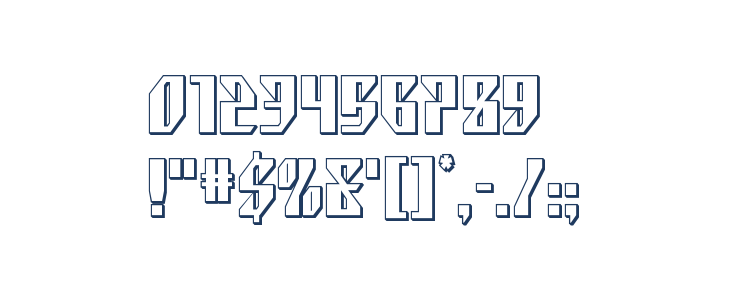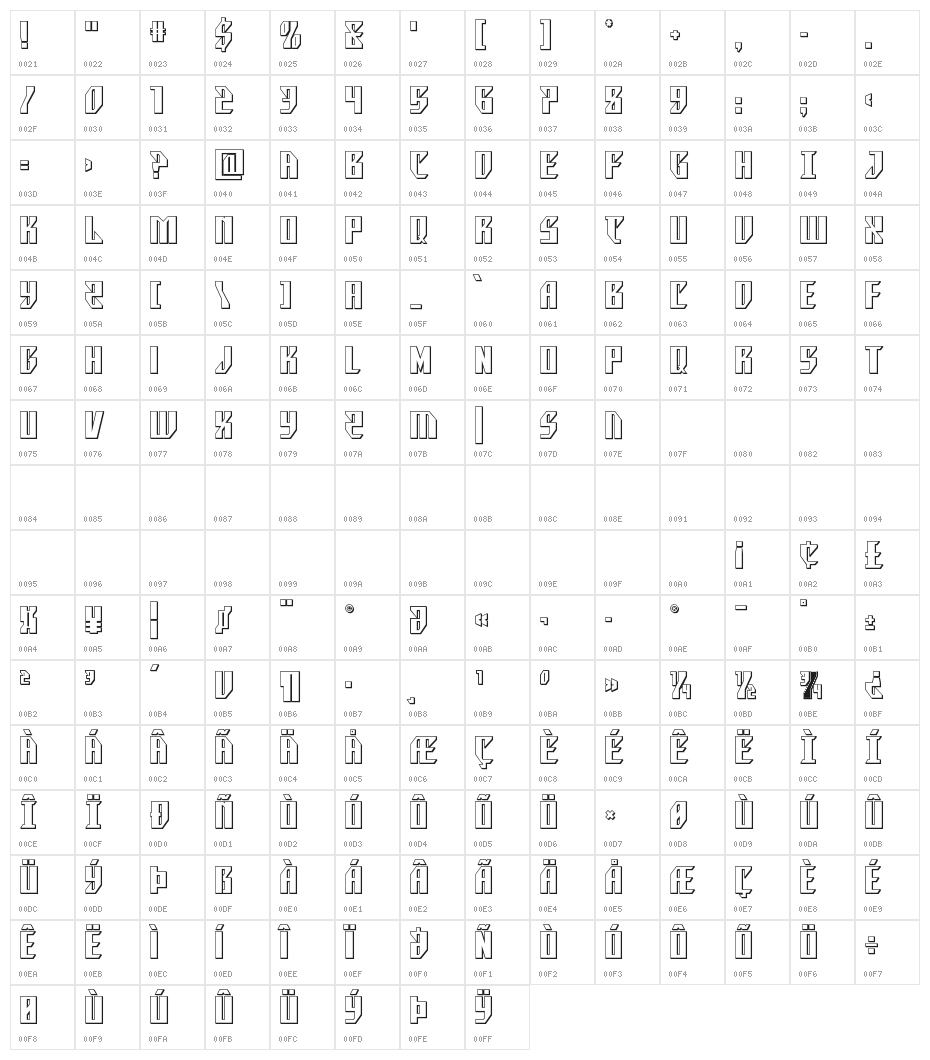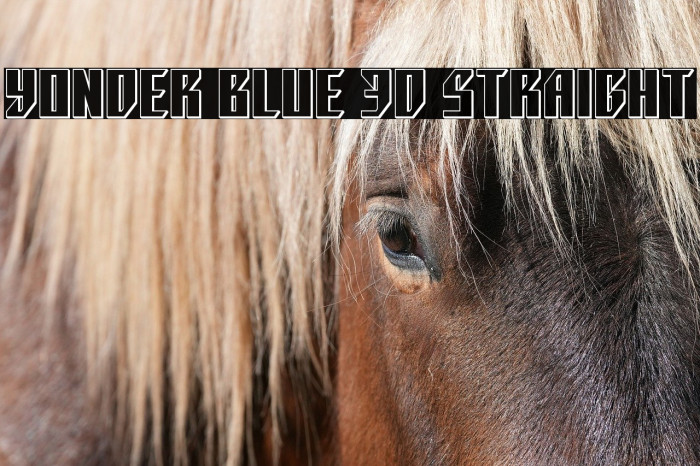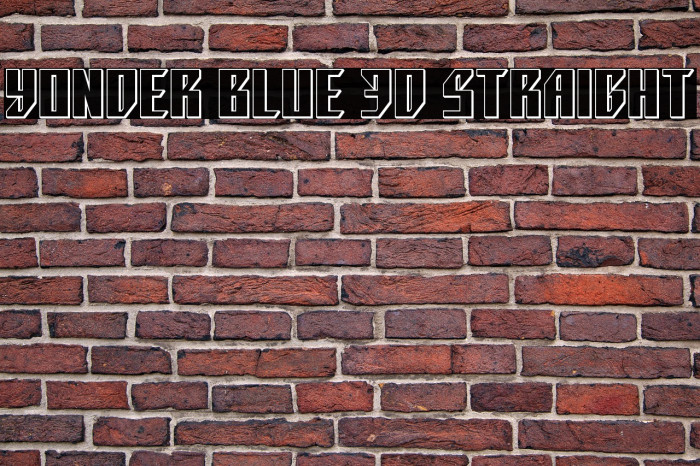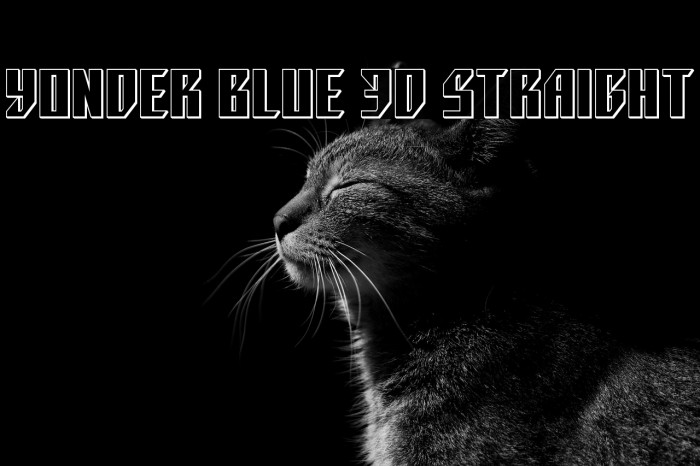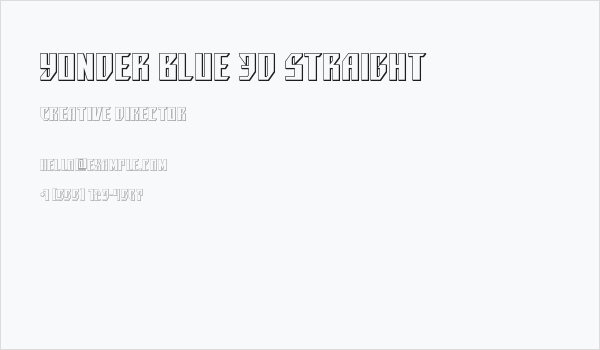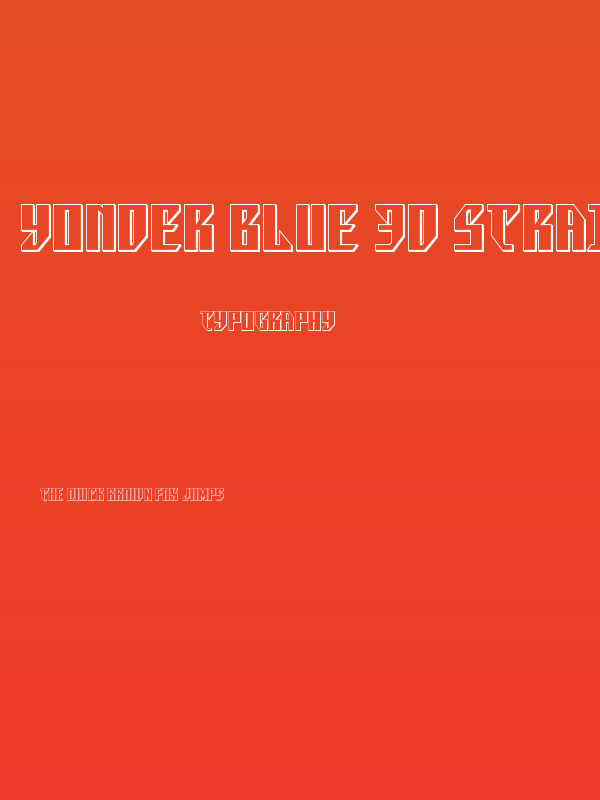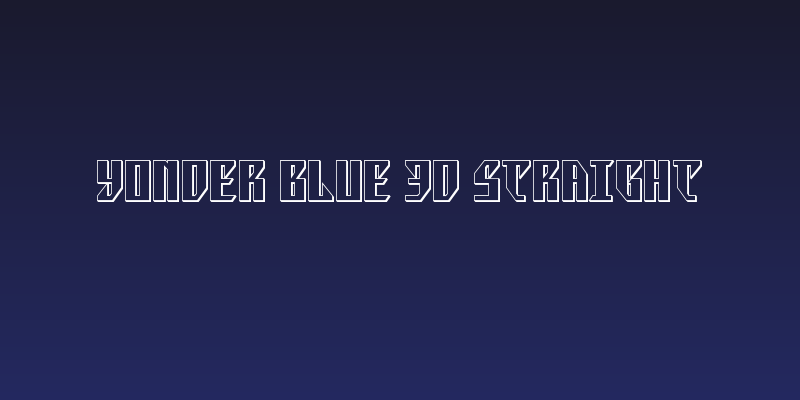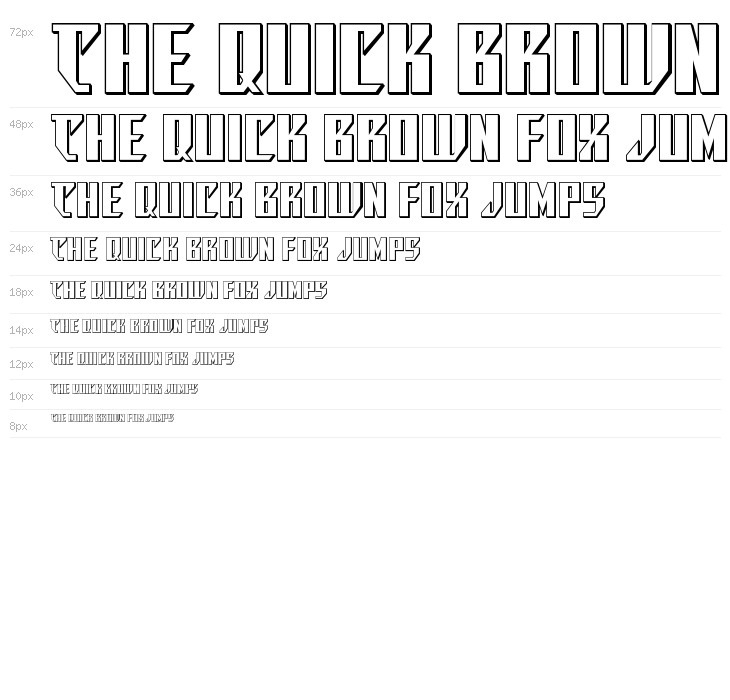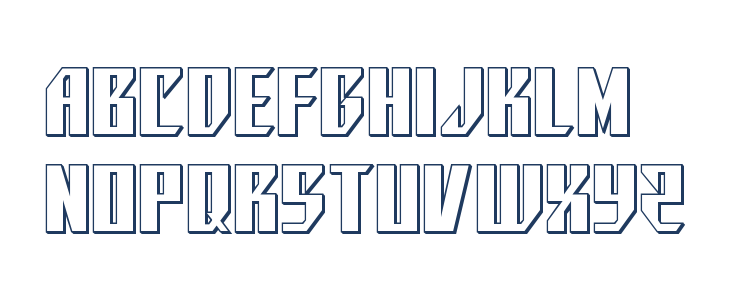
Yonder Blue 3D Straight Font
Yonder Blue 3D Straight Description
This font features a bold, geometric design with a three-dimensional effect, giving each character a distinct, blocky appearance. The letters are outlined with a strong, consistent stroke, creating a sense of depth and structure. The angular shapes and sharp edges contribute to a futuristic and industrial aesthetic, making it stand out in any design. The uppercase and lowercase letters maintain a uniform style, while the numbers and special characters complement the overall look with the same bold and structured design. This font is ideal for projects that require a modern and impactful visual presence.